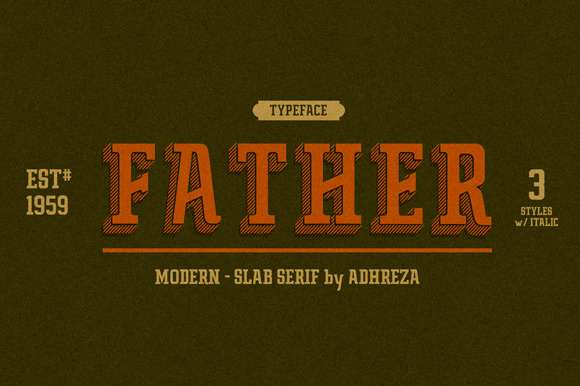
Father Typeface
Father Typeface is a modern-slab serif font for display or medium look bodytext. Inspired by retro restaurant style, I decided to combined the styles between condensed & slab serif font and makes the slab serif looks modern. All of the font have the same glyphs : lowercase, uppercase, numbers, and symbols. To complete the style, the font have different visuals and there's a .psd file (Adobe Photoshop CS3) as a sample for using Father 3D Figure & Ground and create the promo title with the color combination that I used on the promos. SEE DETAILS :
- Father Alternate (diagonal arm for ) (w/ Italic)
- Father 3D
- Father 3D Figure & Ground (separate Father 3D)
- Father Distort (w/Italic)